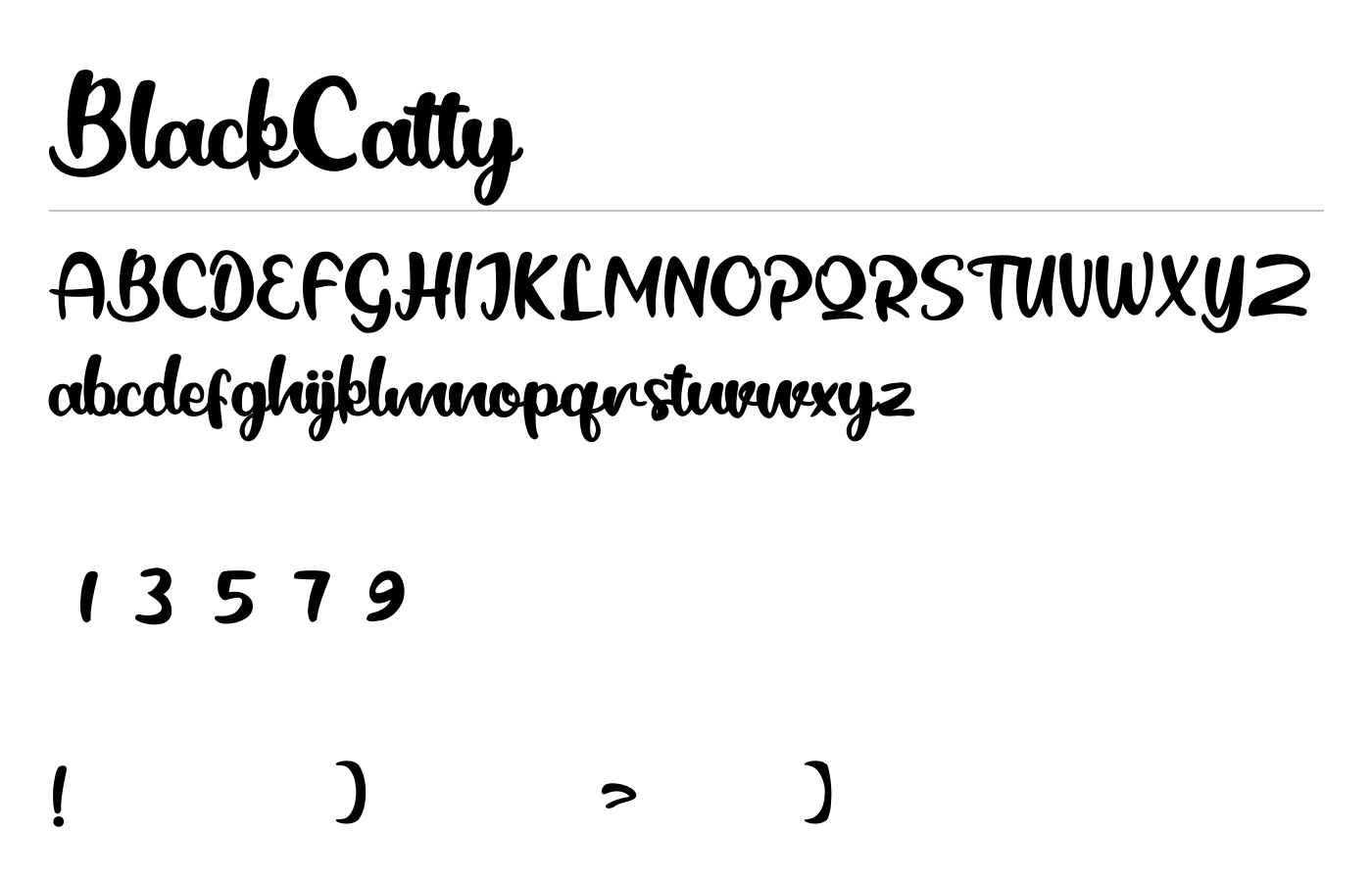
BlackCatty is a playful, handwritten script font with smooth, rounded strokes and a lively, casual feel. Its bold weight and flowing letterforms give it a friendly and approachable personality, making it perfect for creative branding, invitations, and fun editorial projects that want a warm, personal touch. This font works best where a relaxed yet distinctive vibe is desired, adding charm and character to logos, posters, and any design needing a cheerful handwritten style.
BlackCatty Font
About BlackCatty Font